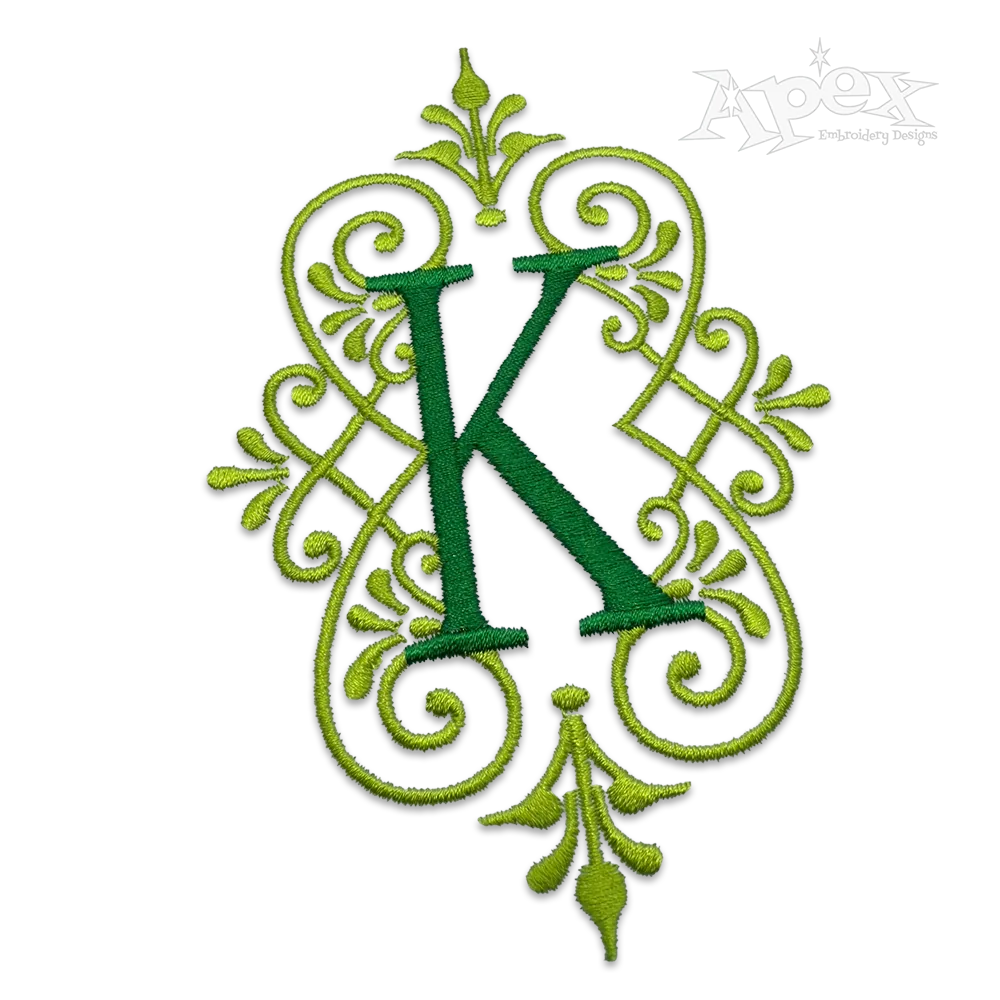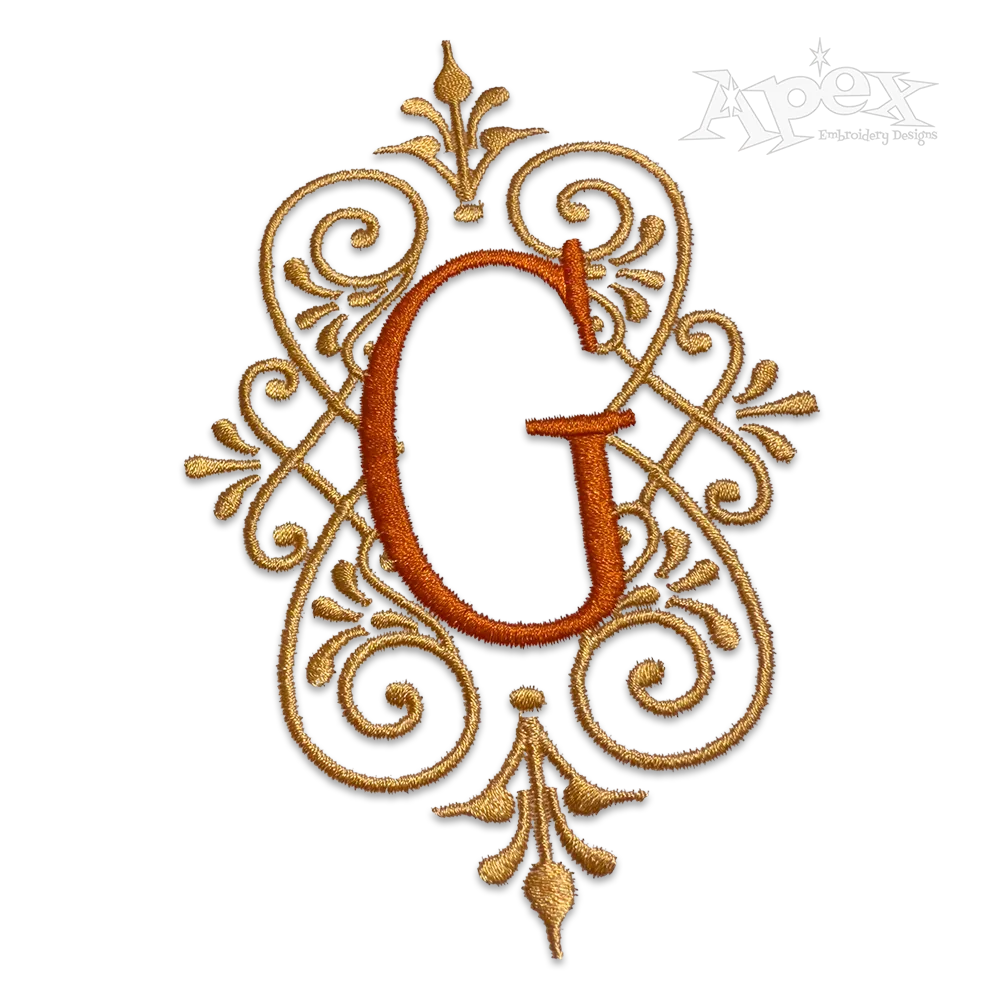
Philips Gate Embroidery Font
Echoing the stately grandeur of historic wrought-iron estate gates and classic European architecture, the Philips Gate Embroidery Font brings an undeniable air of regal sophistication to the hoop. Conceived as an imposing, two-color statement alphabet, every letter captures the balance between bold architectural framework and intricate ornamental charm. Whether rendering a commanding family crest or an elegant single-initial focal point, this grand alphabet transforms simple textiles into storied heirloom masterworks infused with timeless heritage and dimension.
Project Ideas for Philips Gate
With its stately scale and structural elegance, Philips Gate turns everyday textiles into bespoke treasures:
- Heirloom Bedding & Euro Shams: Embroider a single, central family initial on crisp 600-thread-count percale or linen duvet covers for a boutique hotel aesthetic.
- Bespoke Resort Wear & Robes: Stitch a tone-on-tone two-color monogram across the back of heavy waffle-weave bathrobes or linen pool cover-ups.
- Grand Dining & Table Linens: Create an unforgettable tablescape by positioning crisp 4-inch monograms on oversized linen dinner napkins or banquet table runners.
- Personalized Gifting & Canvas Totes: Elevate heavy-duty cotton boat totes and structured duffel bags with vibrant, contrasting letter pairs for weddings, milestone anniversaries, or housewarming gifts.
- Holiday Accents: Frame dramatic velvet stockings or tree skirts with metallic gold and deep evergreen thread combinations.
Due to its substantial proportions and architectural presence, thoughtful placement maximizes the visual impact of each letterform:
- Center Focal Placement: Position 5-inch or 6-inch letters squarely in the dead center of decorative accent pillows, duvet covers, or framed fabric crests.
- Corner Diagonals: Set a single 4-inch letter at a 45-degree angle, approximately 2.5 to 3 inches from the hemmed point of oversized dinner napkins or table squares.
- Upper Center Back: For jackets, kimonos, or spa robes, align the top of the design roughly 3 to 4 inches below the collar seam for balanced carriage across the shoulders.
- Front Panel of Structured Bags: Center the monogram between the carry straps, aligning the vertical midpoint slightly above true center to visually counterbalance bottom gussets.
Philips Gate Craft & Letterform Details
The magic of Philips Gate lies in its architectural duality. Our digitizing philosophy centers on how light catches each distinct thread path; by separating the letterform into a primary structural body and an accentuating frame, we allow two colors to interplay like sun and shadow across sculpted ironwork.
Every curve and serif is mapped with dynamic stitch angles that flow organically around bends, avoiding blunt transitions and bulky overlap. Generous, smooth satin columns are stabilized by firm structural underlay, ensuring the stitches lay lofted and pristine across textured weaves without sinking or puckering. From the sharp corner terminations to the sweeping, dignified crossbars, Philips Gate is meticulously calibrated to deliver effortless stitch-outs and breathtaking tactile relief from the very first run.